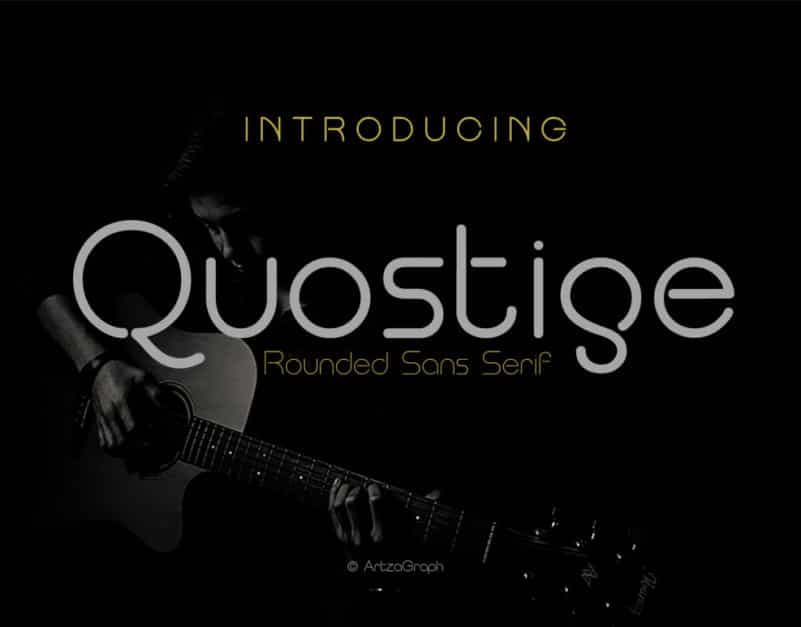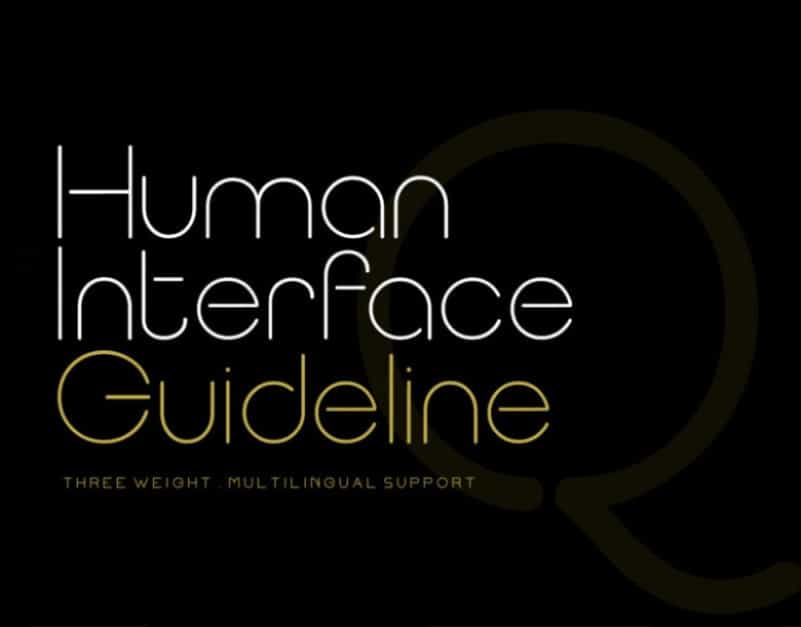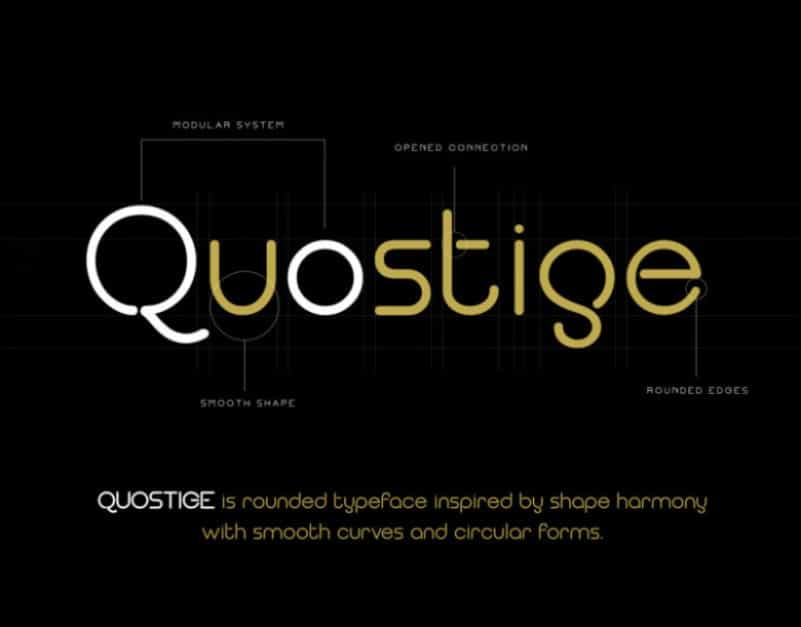
Quostige Sans Serif: This is a rounded typeface based on the shape harmony with smooth curves and rounded forms circles. It is also characterized by a delicate design, which is free from sharp corners or angles. A smooth and linear structure, a single form, the distinctive oval and the proportions make the face look dynamic, like a harmony.